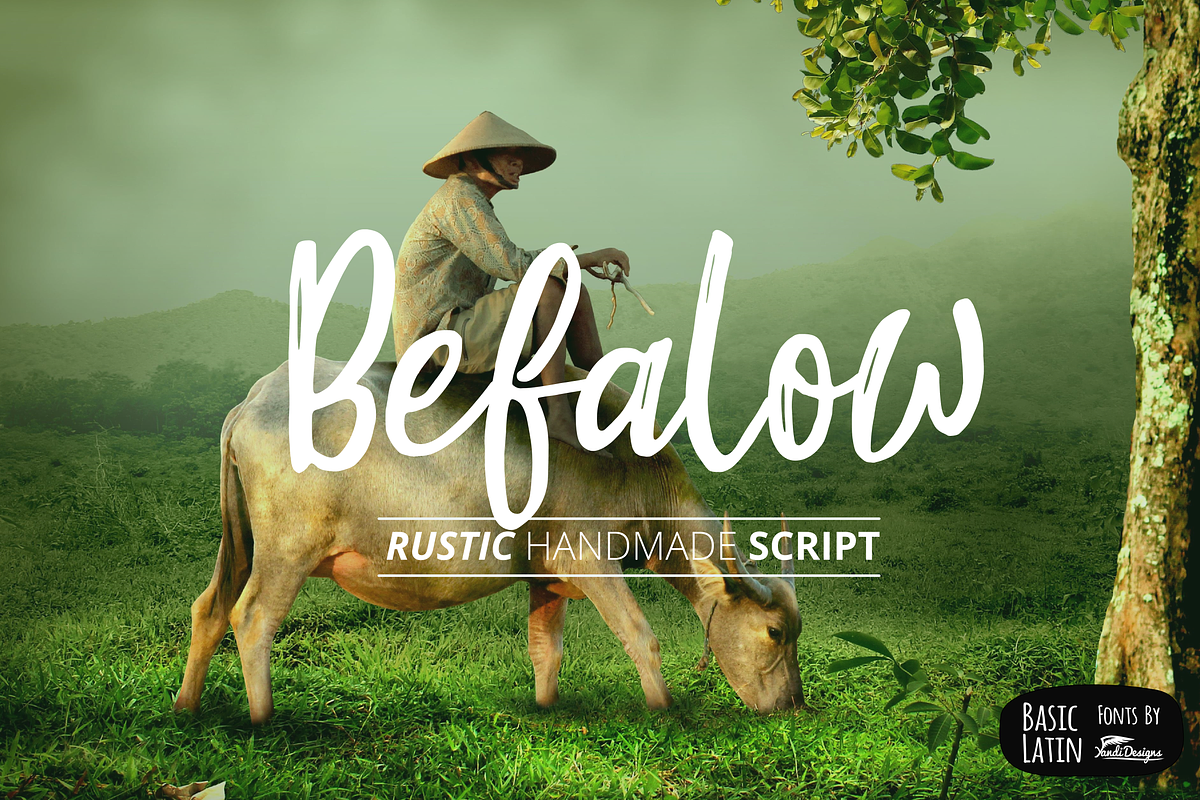
Befalow Rustic Font Free Download is a handwritten, rustic-style typeface that brings warmth, charm, and a natural touch to your designs. With its organic brush strokes and casual elegance, this font is perfect for farmhouse signs, product packaging, wedding stationery, logo design, and handcrafted branding.
Befalow Rustic Font Free Download captures the beauty of imperfection—each letter feels authentically handwritten, giving your project a cozy, down-to-earth vibe. Whether you're designing for a small business, lifestyle blog, or DIY project, this font helps your message feel personal and heartfelt.
It pairs beautifully with watercolor elements, kraft textures, floral illustrations, or vintage photography. Ideal for creatives who want to express sincerity, nature-inspired aesthetics, and rustic sophistication in every word.
Let your design breathe with character and soul using Befalow—where simplicity meets handwritten artistry.